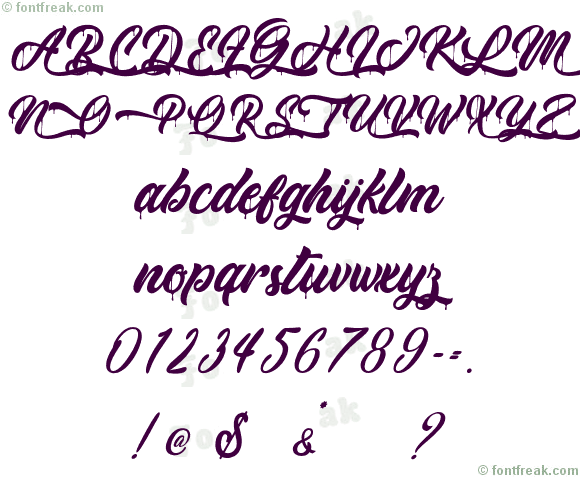
MonkeyAct-PersonalUse
The MonkeyAct-PersonalUse font, designed by Suthi Srisopha, is a captivating script typeface that combines elegance with a playful flair. This font exhibits a handwritten style, characterized by its fluid strokes and lively curves, making it an excellent choice for a variety of creative projects. The stroke weight is consistent, with slight variations that add a touch of authenticity, while the spacing is thoughtfully designed to ensure readability without sacrificing its artistic appeal. The decorative elements, such as the whimsical swirls and flourishes, enhance its charm and give it a unique personality.
This font is particularly well-suited for use in wedding invitations, where its romantic touch can set the perfect tone. Additionally, it works beautifully on movie posters, providing a dynamic visual element that can attract attention. Restaurant menus can also benefit from the MonkeyAct-PersonalUse font, adding a stylish and inviting feel that complements the dining experience. Furthermore, this typeface is ideal for branding materials, particularly for small businesses looking to convey a creative and approachable image.
Targeting graphic designers, small business owners, and content creators, this font serves as a versatile tool that can elevate any design project. Its unique style allows users to express their creativity while maintaining professionalism.
What sets the MonkeyAct-PersonalUse font apart is its blend of sophistication and whimsy, making it a standout choice in the world of typography. With its free download availability, this font allows users to explore its potential without any financial commitment. Whether you're crafting a heartfelt invitation or designing an eye-catching poster, the MonkeyAct-PersonalUse font is sure to leave a lasting impression.